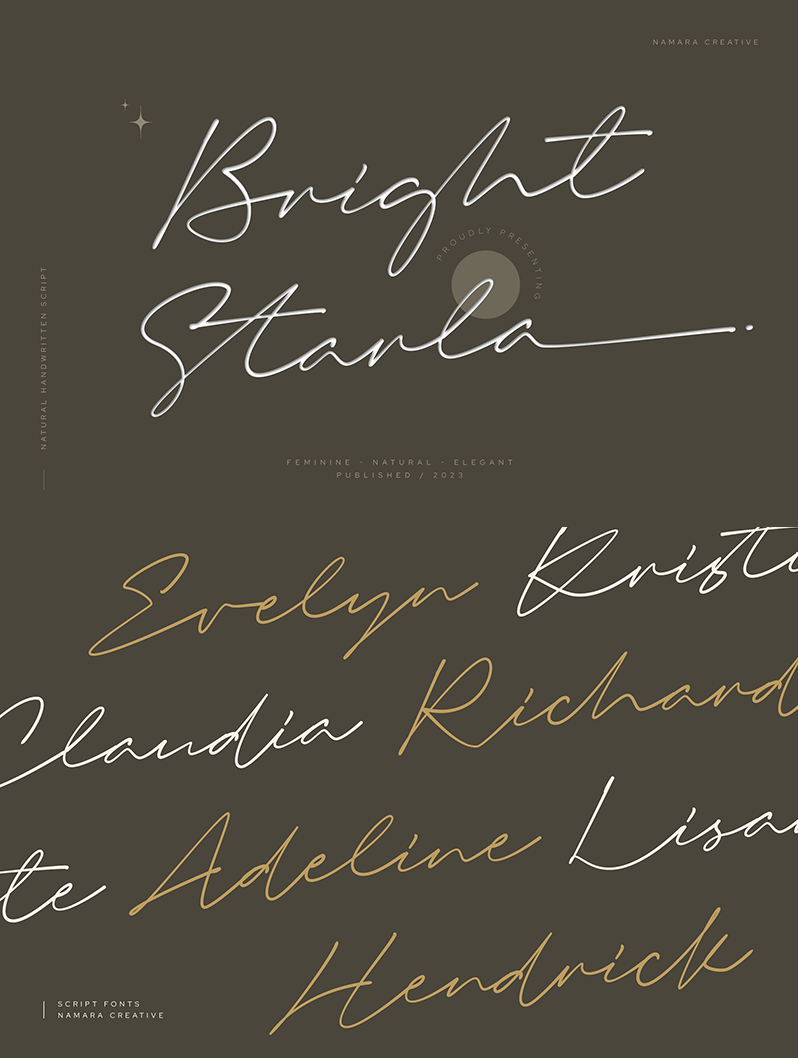
Font name: | Bright Starla |
Author: | Namara Creative |
An elegant natural handwritten script that radiates sophistication, grace, and refinement. It�s the perfect choice for creating designs that require a natural handwritten script touch and luxury styles. By installing or using this font, you are agree to the Product Usage Agreement: - This font is PERSONAL USE ONLY. NO COMMERCIAL USE ALLOWED! - Link to purchase commercial license https://onedsgn.com/product/bright-starla-natural-handwritten-script/ |